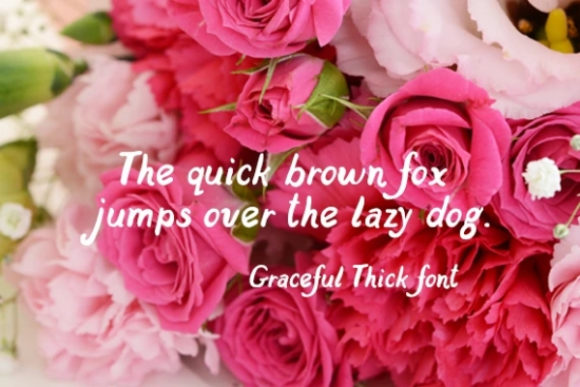
Introducing the Elegance of Graceful Brush Font
In the realm of typography, few fonts manage to capture the essence of both sophistication and casual charm as effectively as the Graceful Brush Font. This bold display font is meticulously crafted to make any design project stand out from the crowd, offering a unique blend of elegance and approachability. Whether you’re a designer looking for the perfect typeface for your next client’s logo or a crafter seeking that special font for your DIY project, Graceful Brush is poised to become your go-to choice.
The Characteristics of Graceful Brush Font
At its core, Graceful Brush Font embodies a distinctive blend of boldness and fluidity. Its letters are designed with a brush-like quality, giving them a dynamic and somewhat hand-painted appearance. This not only lends a touch of personal warmth to any project but also ensures that the text stands out against more conventional typefaces. The bold nature of the font makes it exceptionally readable, even at larger sizes, while its casual undertones prevent it from feeling too formal or imposing.
One of the most compelling attributes of the Graceful Brush Font is its incredible versatility. This font isn’t limited to just one or two specific uses; rather, it can be seamlessly integrated into a wide array of design projects. Here are some of the areas where Graceful Brush truly shines:
- Logos and Branding: The distinctive style of Graceful Brush makes it an excellent choice for logos, offering businesses a unique opportunity to stand out. Its memorable appearance ensures that brands can leave a lasting impression on their audience.
- Social Media Graphics: In the crowded world of social media, grabbing attention is paramount. Graceful Brush Font can help create engaging and eye-catching graphics that draw viewers in.
- Crafty DIY Projects: For crafters and DIY enthusiasts, Graceful Brush adds a professional yet personal touch to project titles, labels, and descriptions. It’s perfect for handmade goods, craft fairs, and related marketing materials.
- Advertising and Marketing Materials: The bold and readable nature of Graceful Brush makes it suitable for use in posters, flyers, and digital ads, ensuring messages are conveyed with both impact and elegance.
Why Choose Graceful Brush Font?
Choosing the right font for a design project can be a daunting task, given the vast options available. However, Graceful Brush Font stands out for several reasons:
- Unique Aesthetic: It offers a fresh alternative to more traditional fonts, providing a unique aesthetic that can help projects stand out.
- Readability: Despite its bold and artistic nature, Graceful Brush maintains high readability, making it suitable for both titles and longer texts.
- Flexibility: Its casual yet sophisticated feel allows it to be used across various platforms and project types.
Graceful Brush Font is more than just a typeface; it’s a design statement. With its bold yet casual charm, it brings a unique blend of elegance and approachability to any project. Designers and crafters alike will find Graceful Brush to be an invaluable asset in their creative arsenal, capable of elevating logos, branding, social media graphics, DIY projects, and much more. Embrace the elegance and versatility of Graceful Brush Font, and watch your designs transform with a touch of grace and a dash of creativity.